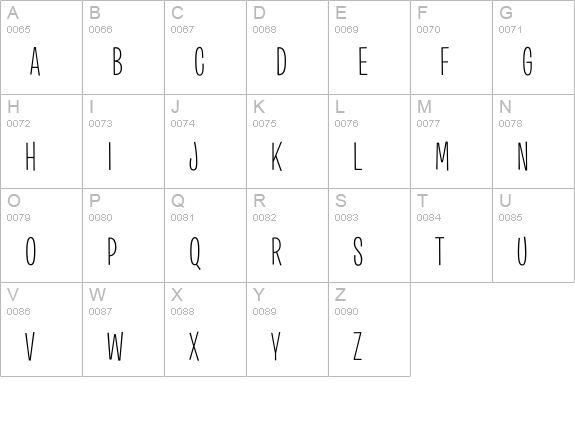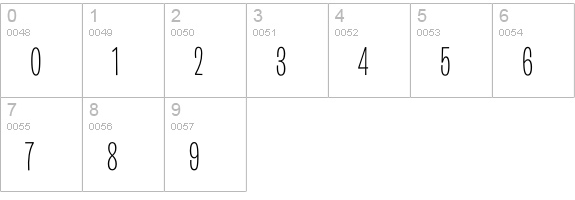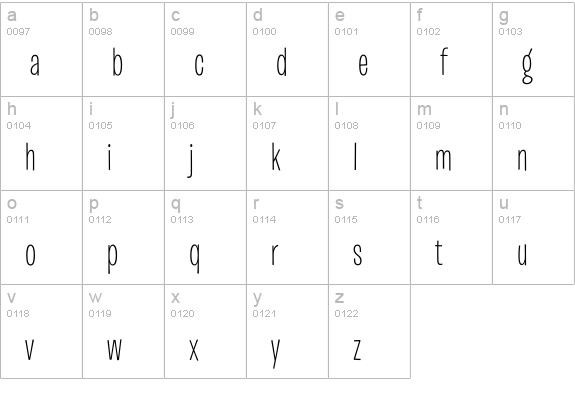
Burbank Big Condensed Light is a refined, elegant, condensed-width variant in the Burbank typeface family \xE2\x80\x94 well suited to elegant body text, refined sub-headings, and luxury branding.
Burbank Big Condensed Light font is a modern and sleek typeface that exudes sophistication and elegance. With its clean lines and minimalistic design, this font is perfect for adding a touch of contemporary style to any project. The light weight of the font gives it a delicate and airy feel, making it ideal for use in headings, titles, and other prominent text elements. What sets Burbank Big Condensed Light font apart is that it is not only stylish and versatile, but also free to download. Available at FontsMarket.com, this font can be easily accessed by designers and creatives looking to elevate their work with a touch of refinement. Whether you're working on a branding project, a website design, or any other creative endeavor, Burbank Big Condensed Light font is a fantastic choice that will help your work stand out. Download Burbank Big Condensed Light font today and bring a touch of modern sophistication to your projects, all without breaking the bank.